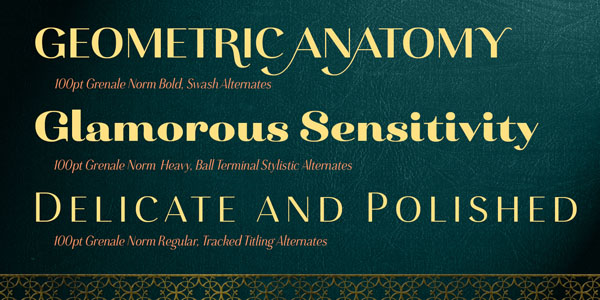
Grenale – Type Family.
Grenale is an elegant sans serif font family designed by Jeremy Dooley (Font Publisher: insigne). The typeface is inspired by the classic Didone but Jeremy Dooley combined it with a contemporary look. This decorative sans serif type family is very eye-catching and provides a high contrast. Grenale works great in headlines or texts for fashion magazines and articles. Its geometric curved shape looks glamorous and is heavily influenced by the haute couture. The extensive font family ranges from thin to heavy plus matching italics and alternates.